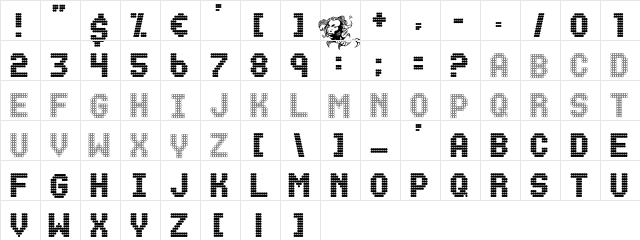
Renegade Mistress Normal
Design Context for Renegade Mistress Typeface
Renegade Mistress takes a measured approach to typography — its balanced proportions and neutral character make it a reliable workhorse for both digital and print work.